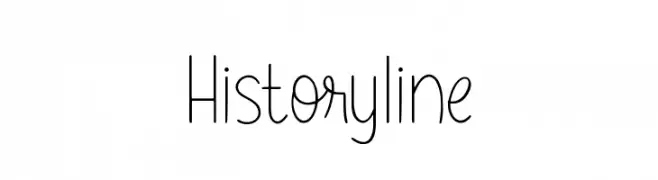
A bold, classic serif font with strong, authoritative characters.
A playful and bold font with rounded, whimsical letterforms.
A playful, outlined font with a hand-drawn, whimsical style.
A playful, bold font with a hand-drawn style and shadow effect.
A bold, playful handwritten font with rounded edges and a casual style.
A bold, geometric font with a distressed, glitch-like effect for modern designs.
A festive and elegant script font with flowing, cursive letters and whimsical charm.
A playful and elegant handwritten font with flowing, connected letterforms.
A playful, hand-drawn font with tall, narrow letterforms and a whimsical style.
A playful, handwritten font with tall, narrow letters and dynamic strokes.